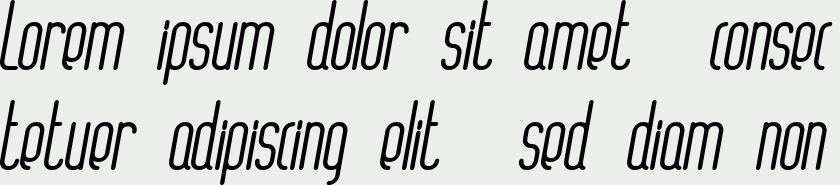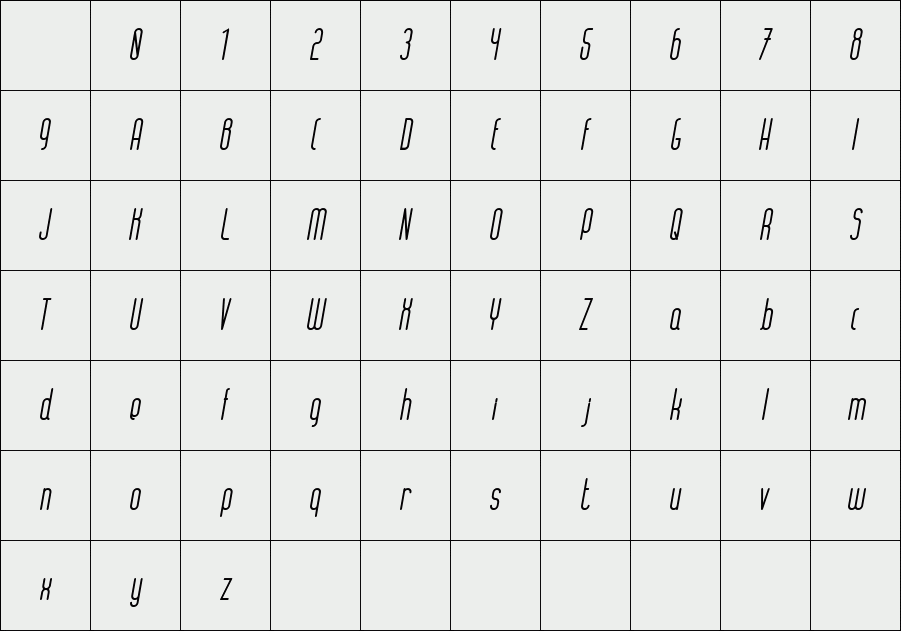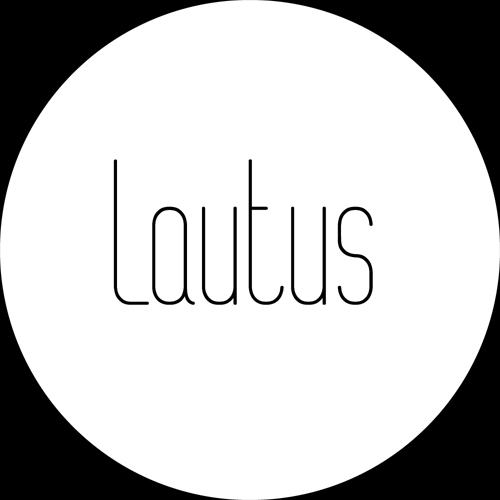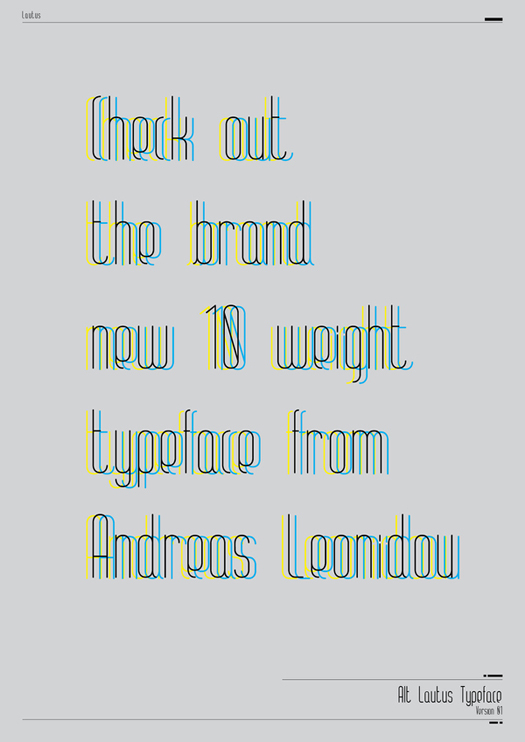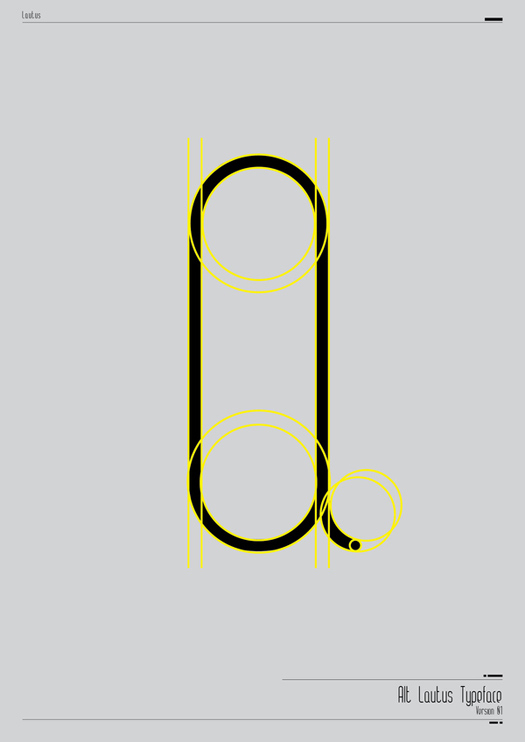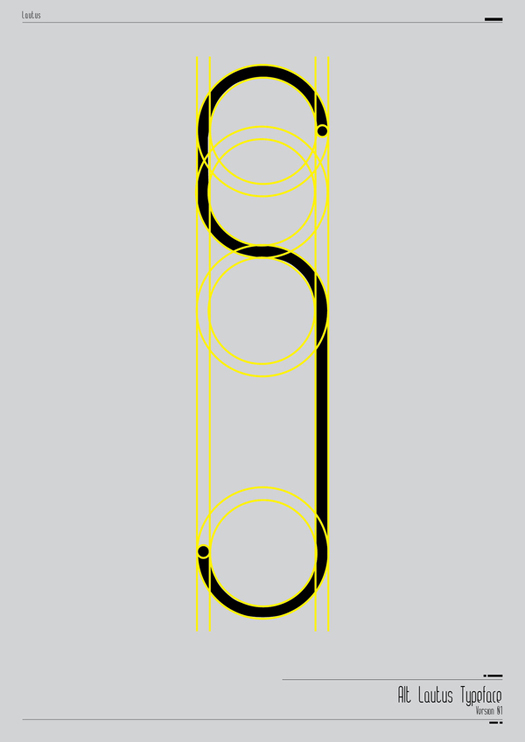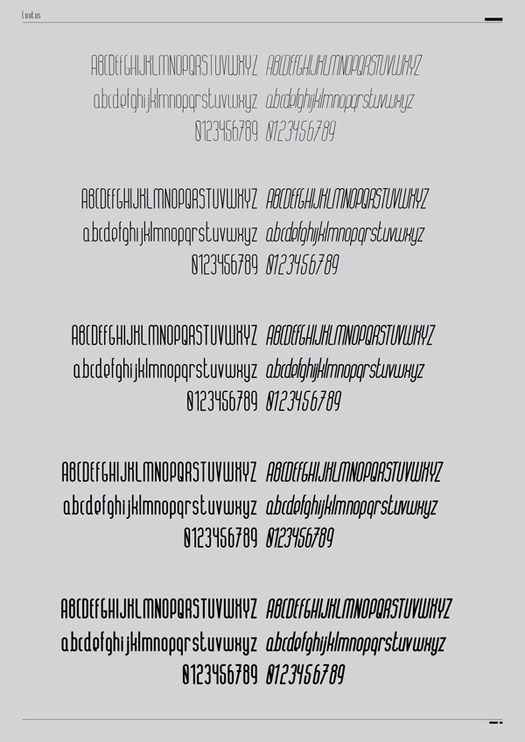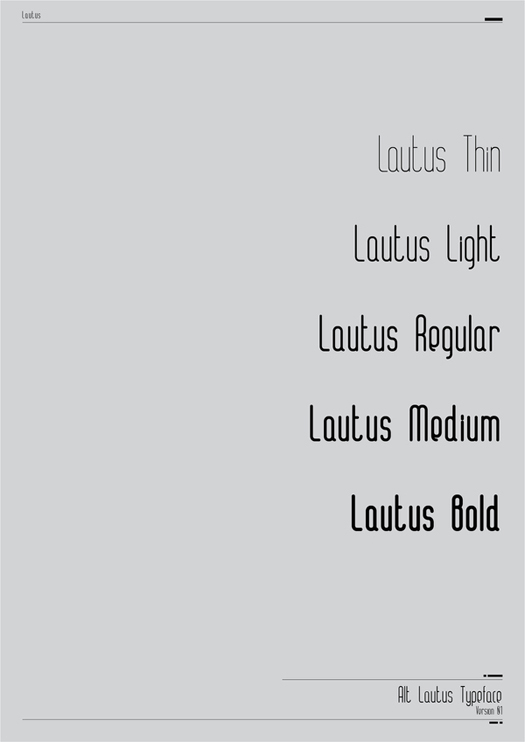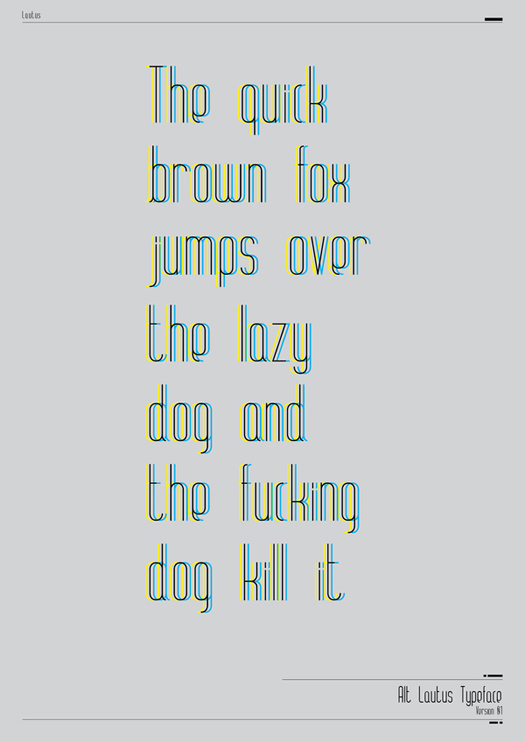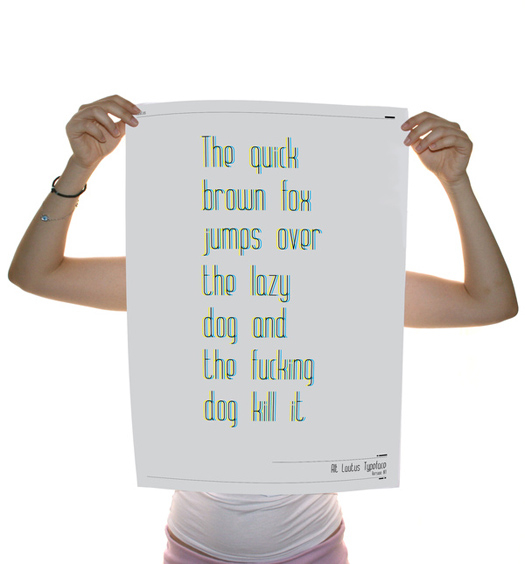
ALT Lautus
/ ALT Lautus regular italics
Lautus is a 10 weight typeface and can be use in almost every graphic design application. It’s great for minimal design, logos, posters, and magazines.
Designer: Andreas Leonidou